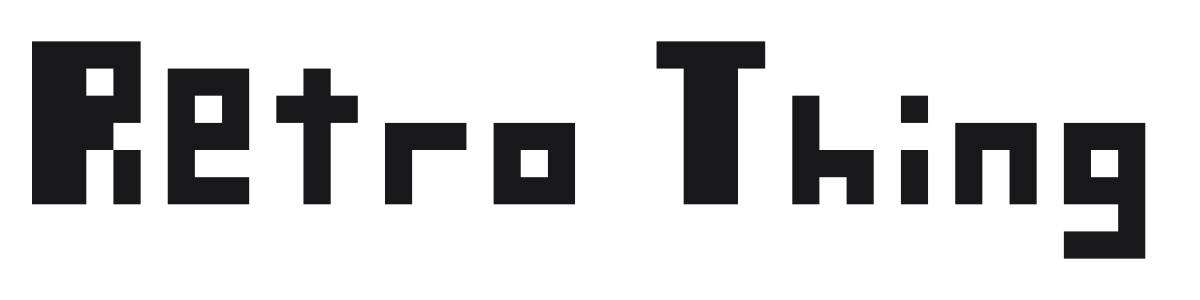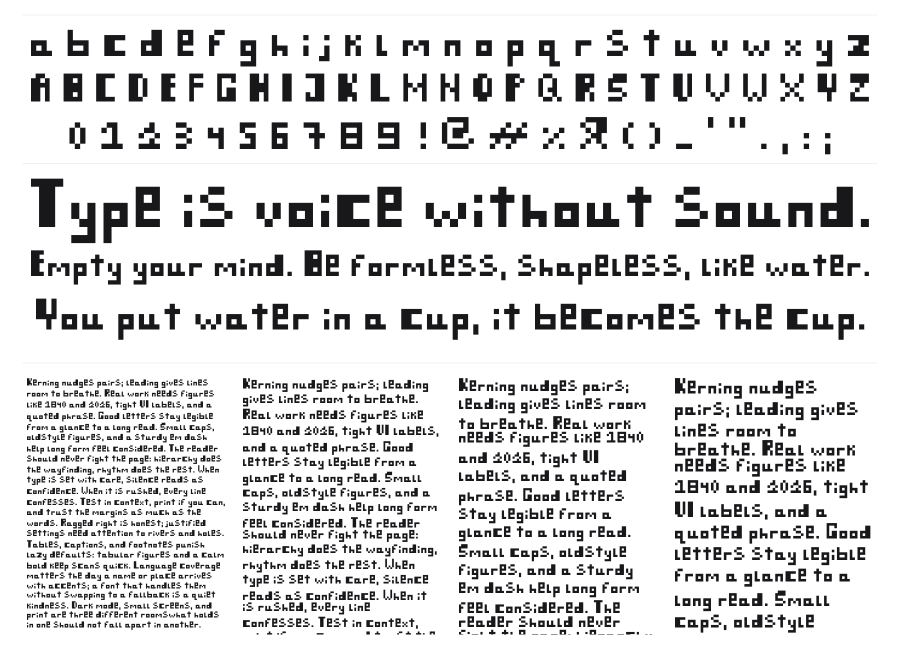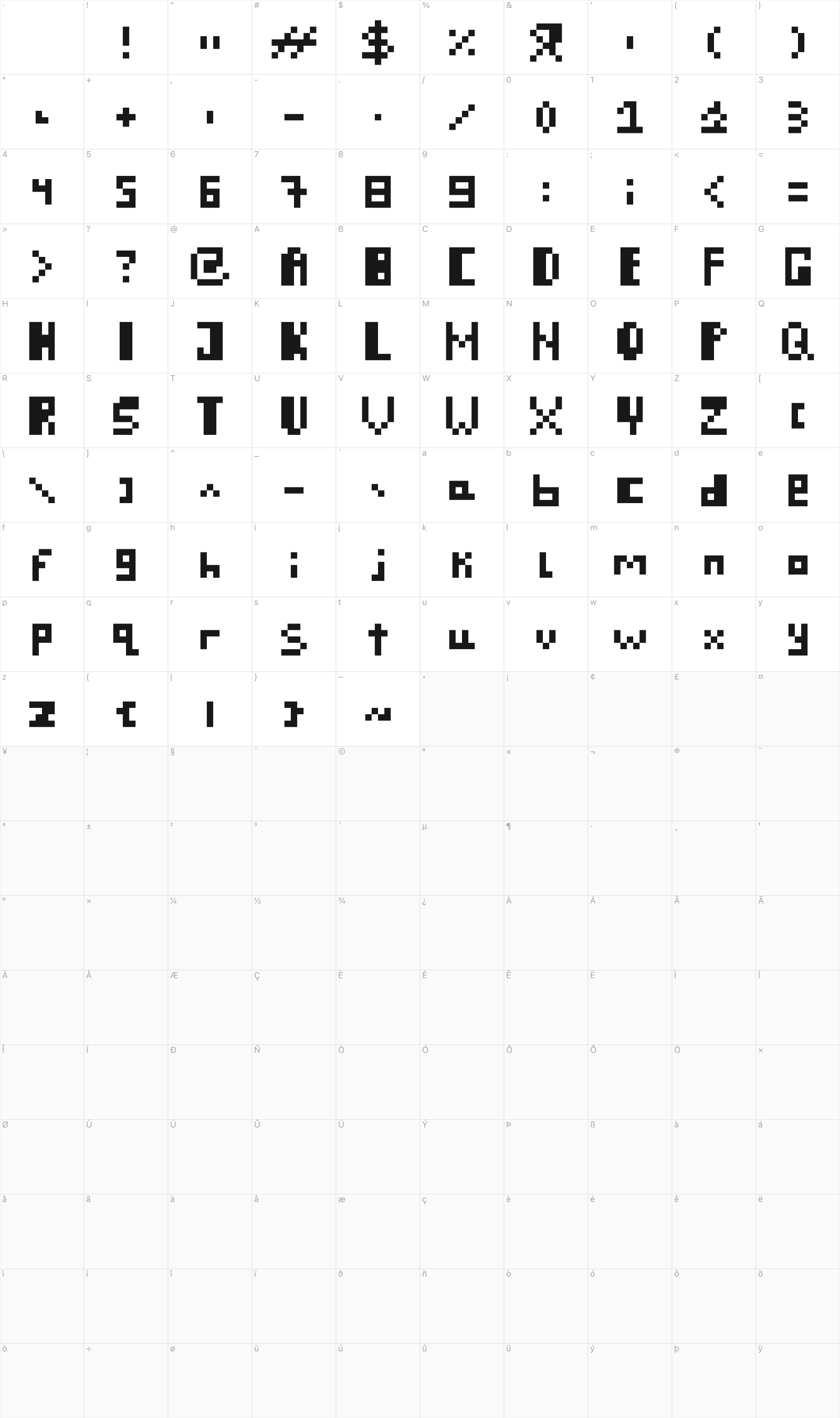
Retro Thing
by Voiid Gobliin
Retro Thing is a bold bitmap font built on a square pixel grid, evoking the chunky character of early home computer screens and arcade cabinets. Its unconventional mixing of letter heights and deliberately rough construction give it a hand-made, lo-fi personality that stands apart from more polished pixel typefaces. It works best at large sizes where the pixel structure reads as a deliberate stylistic choice.